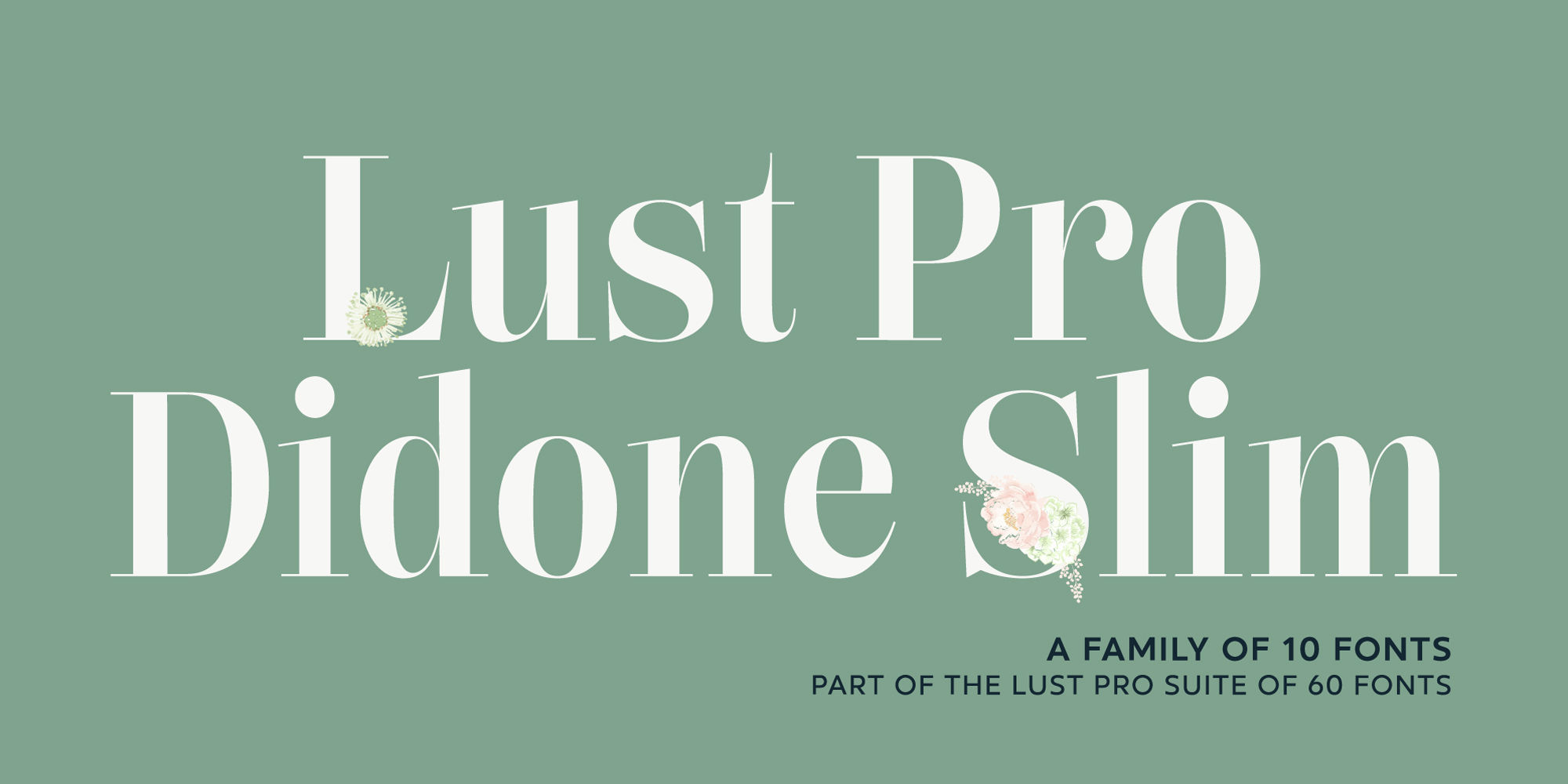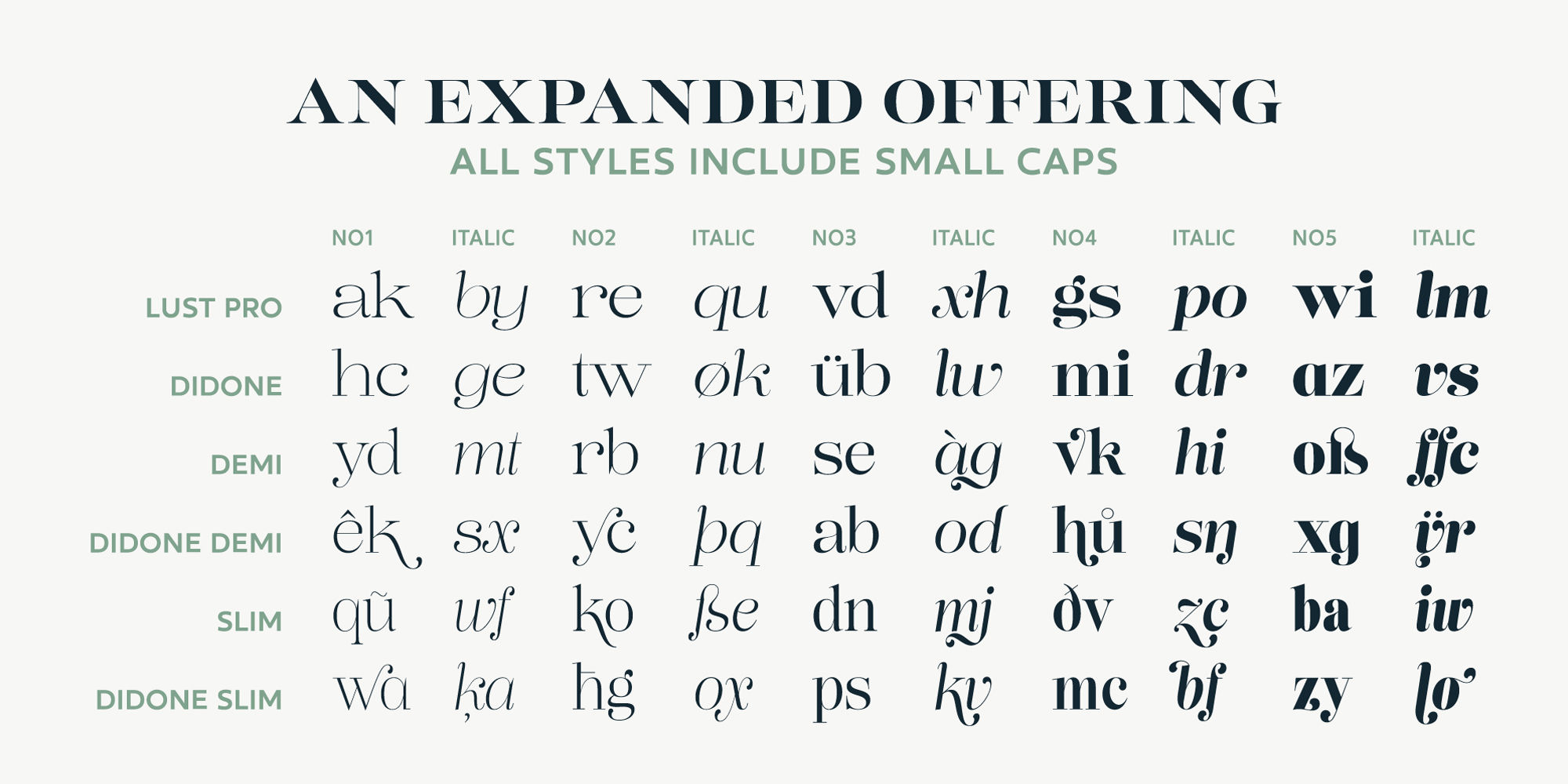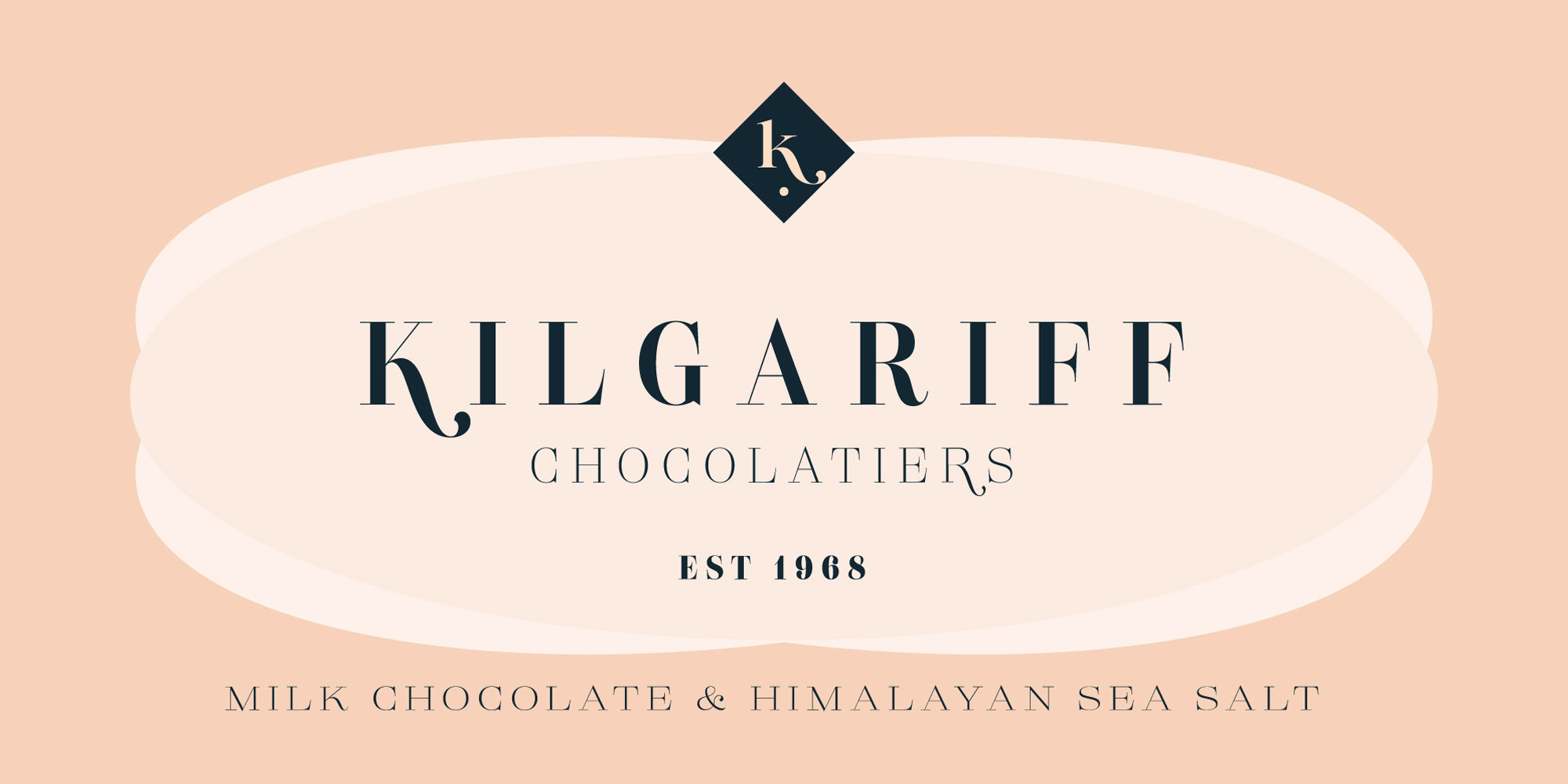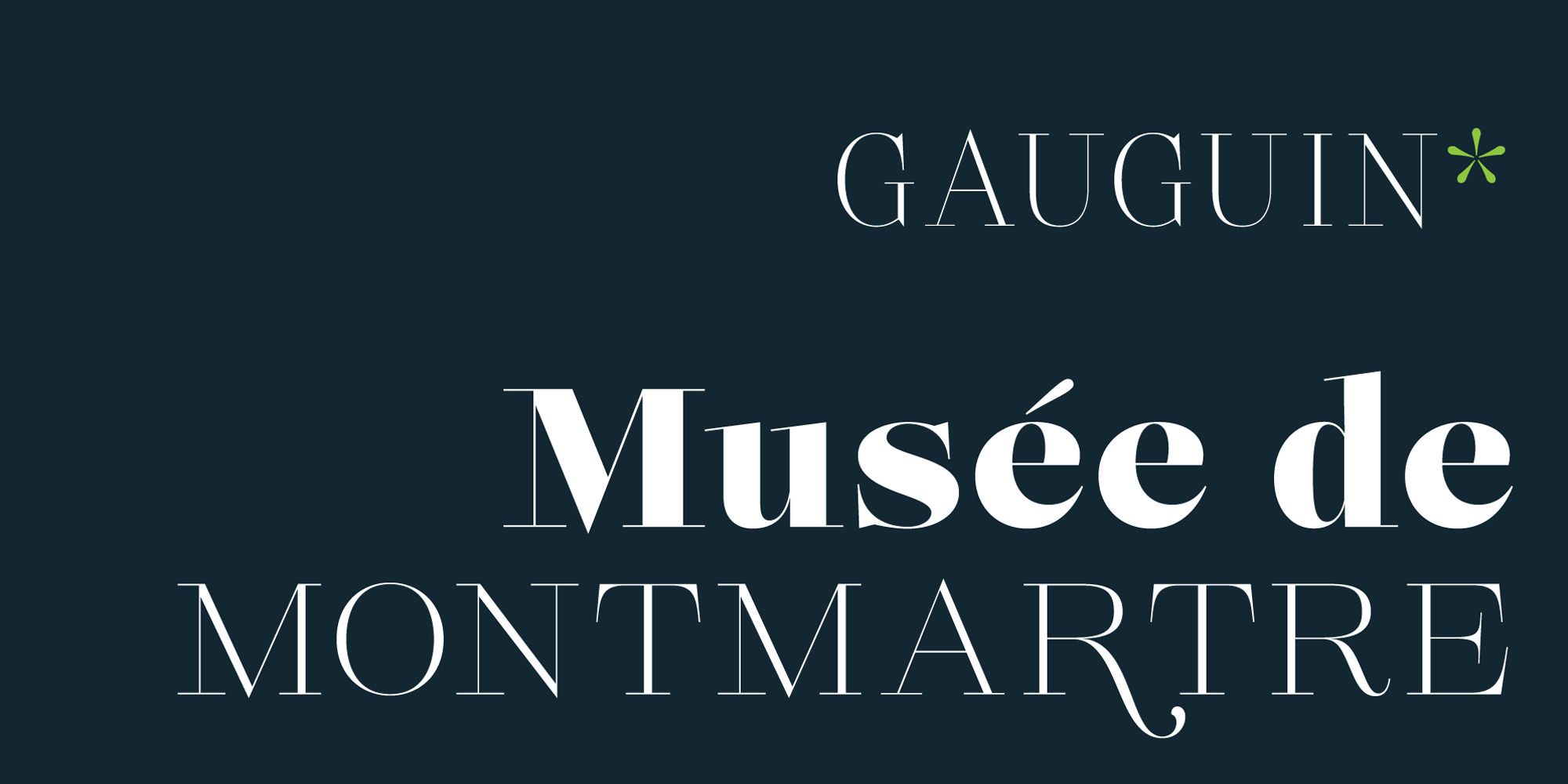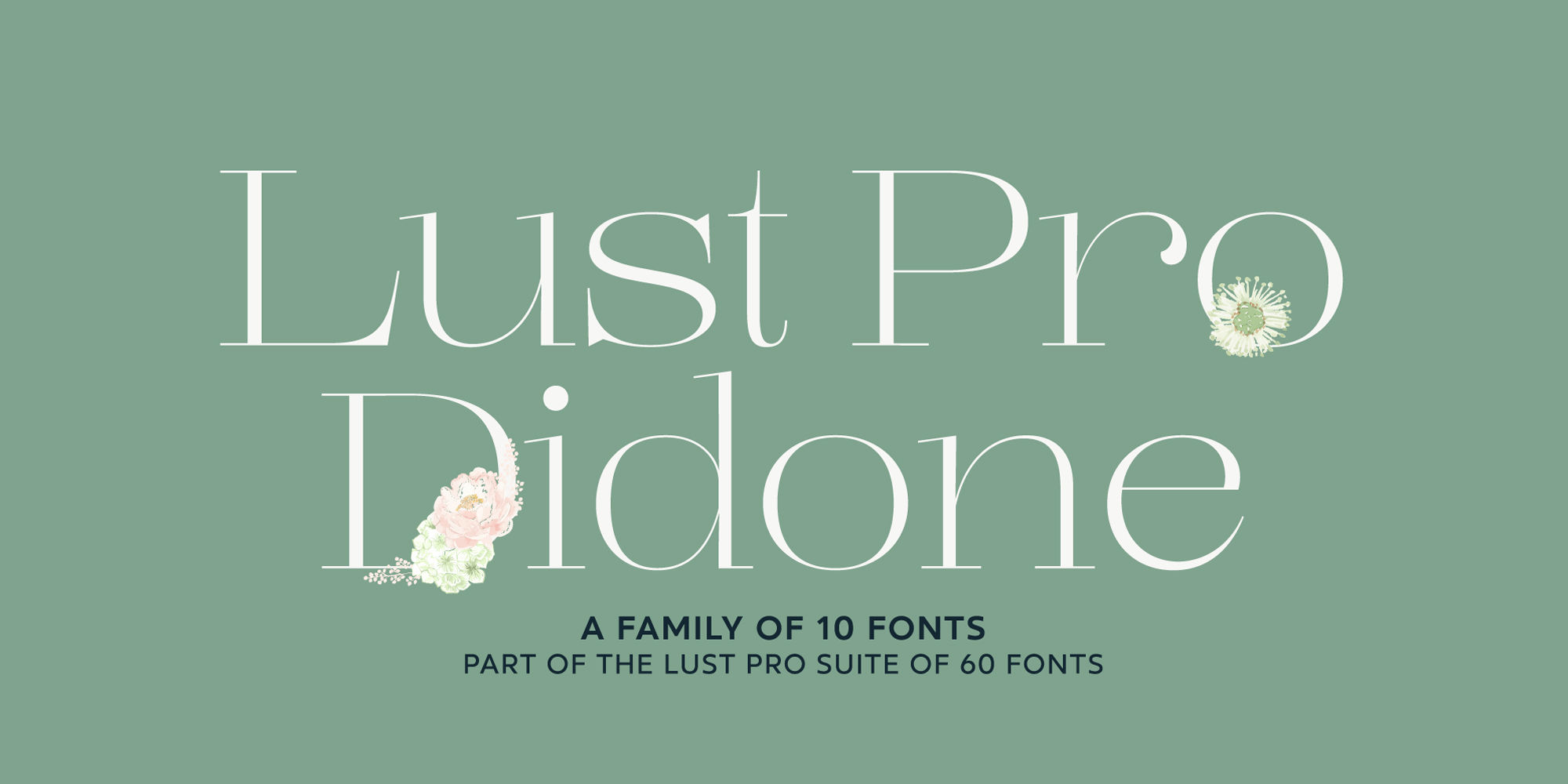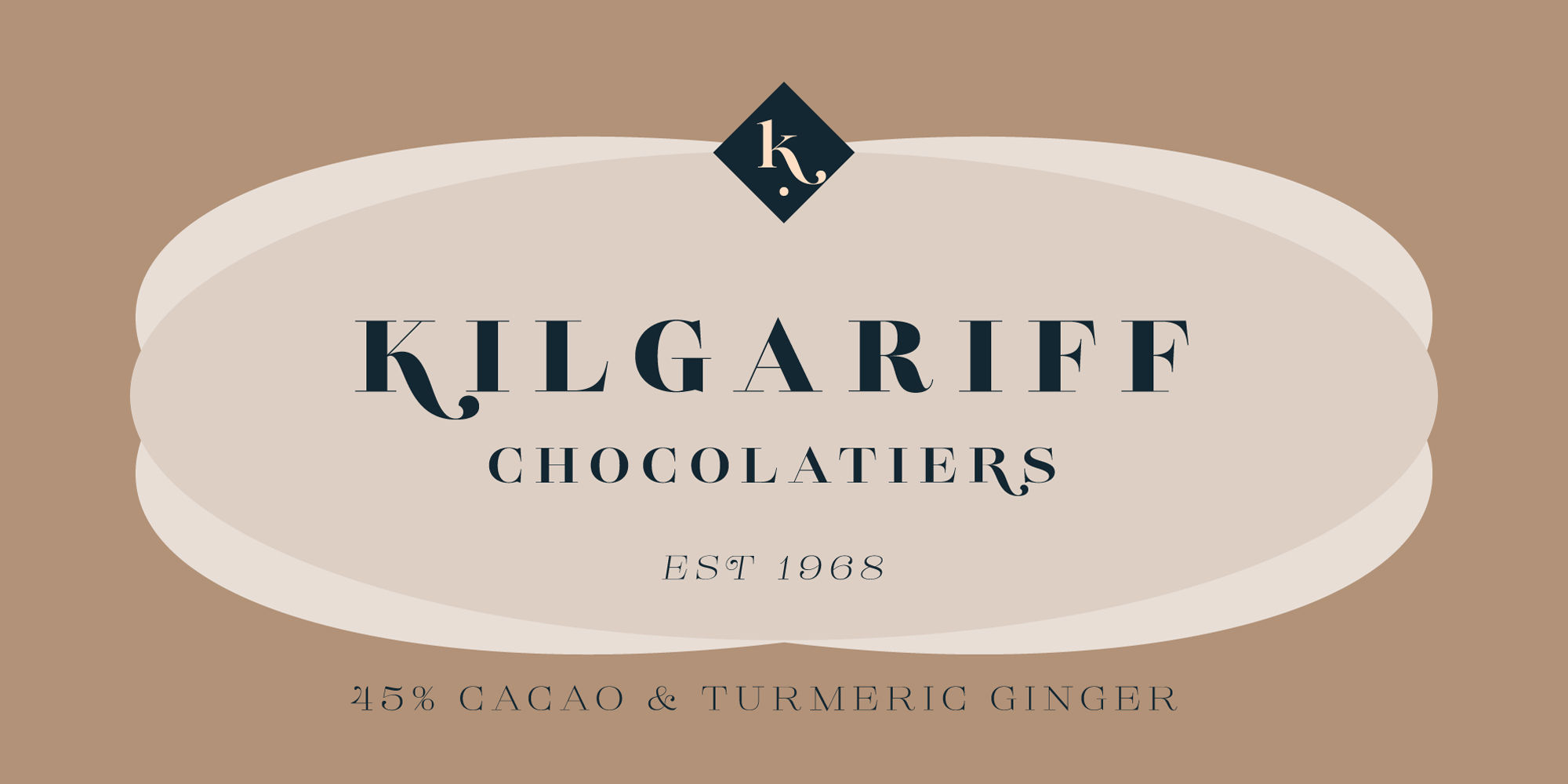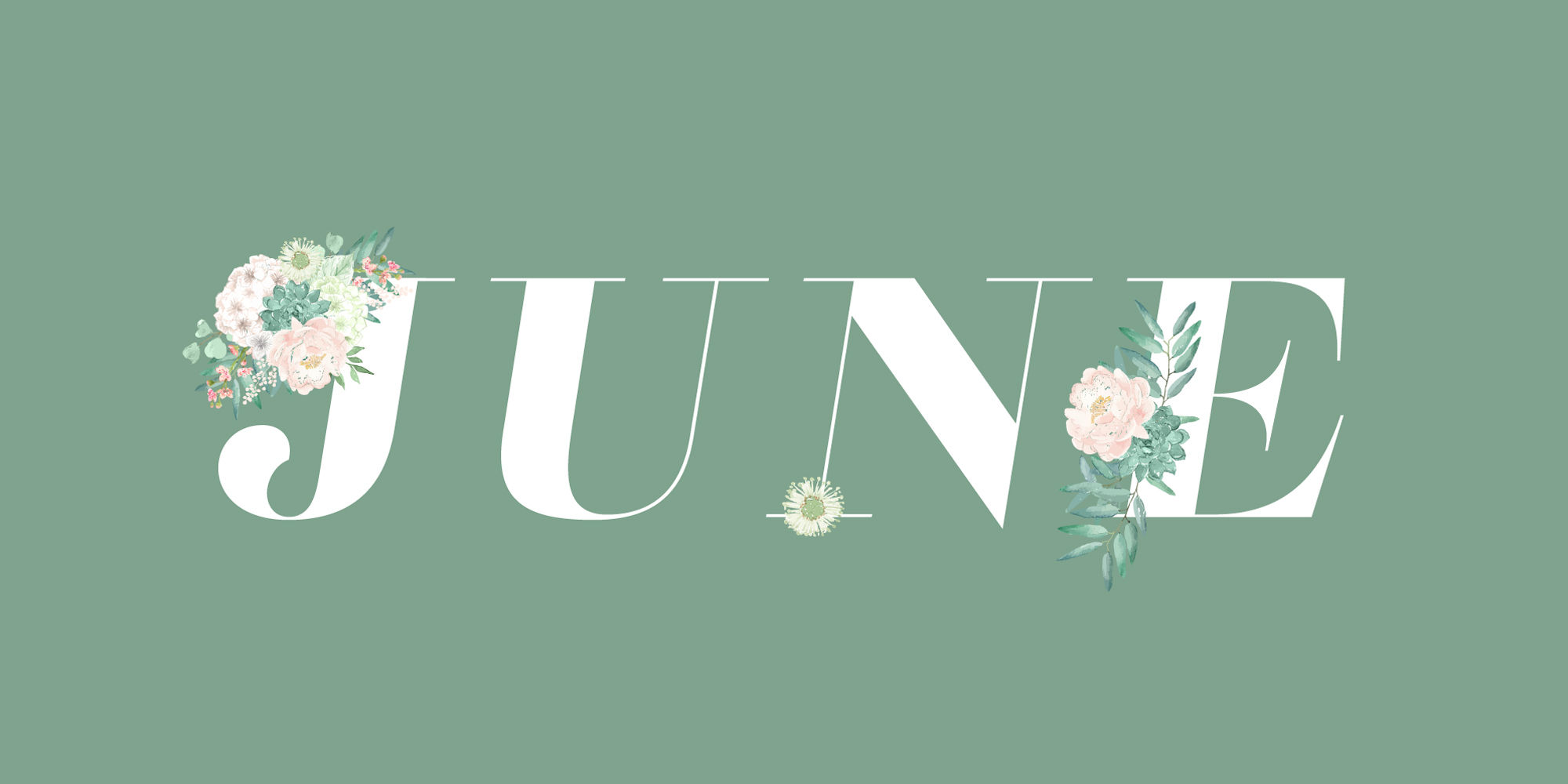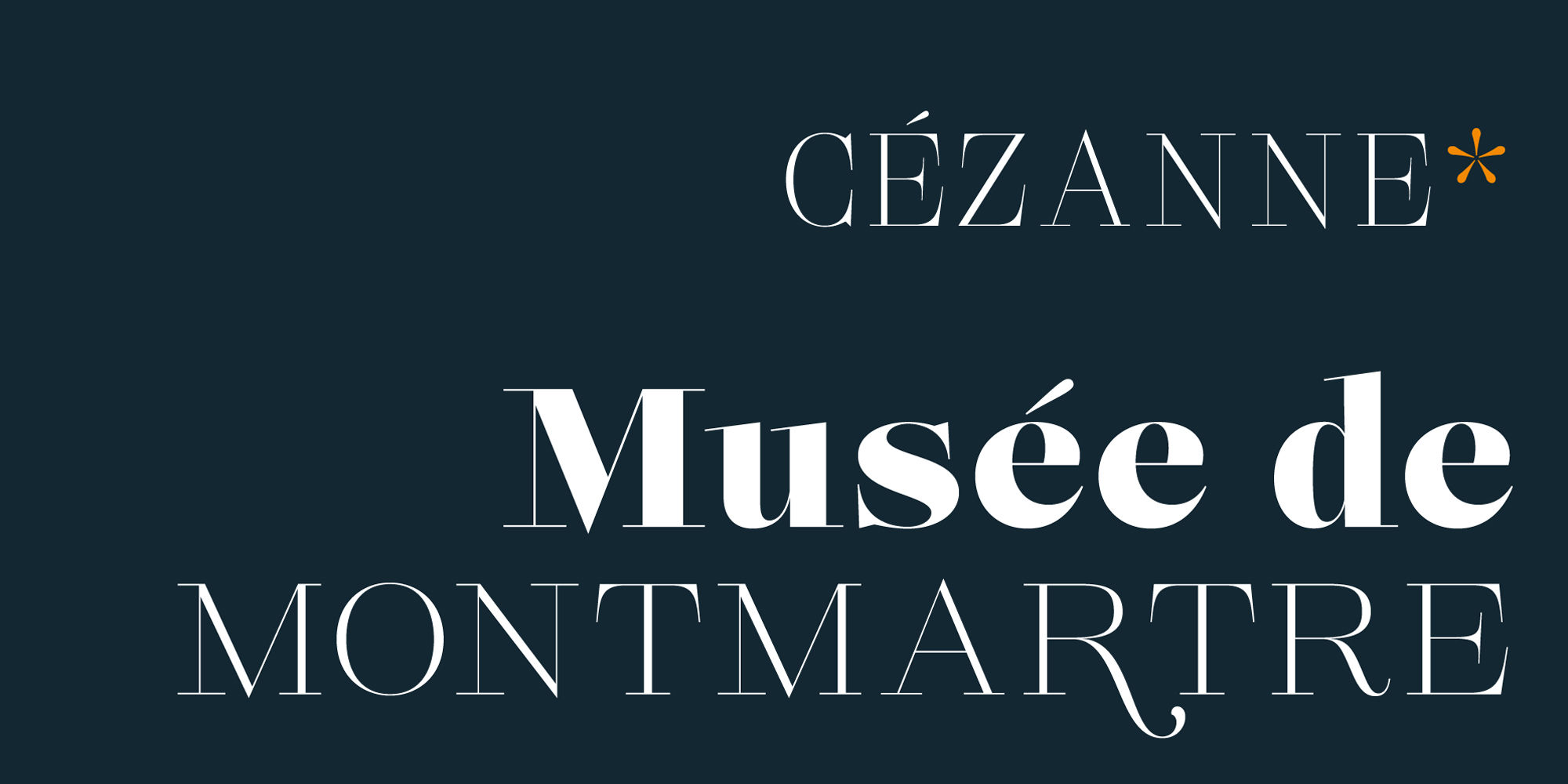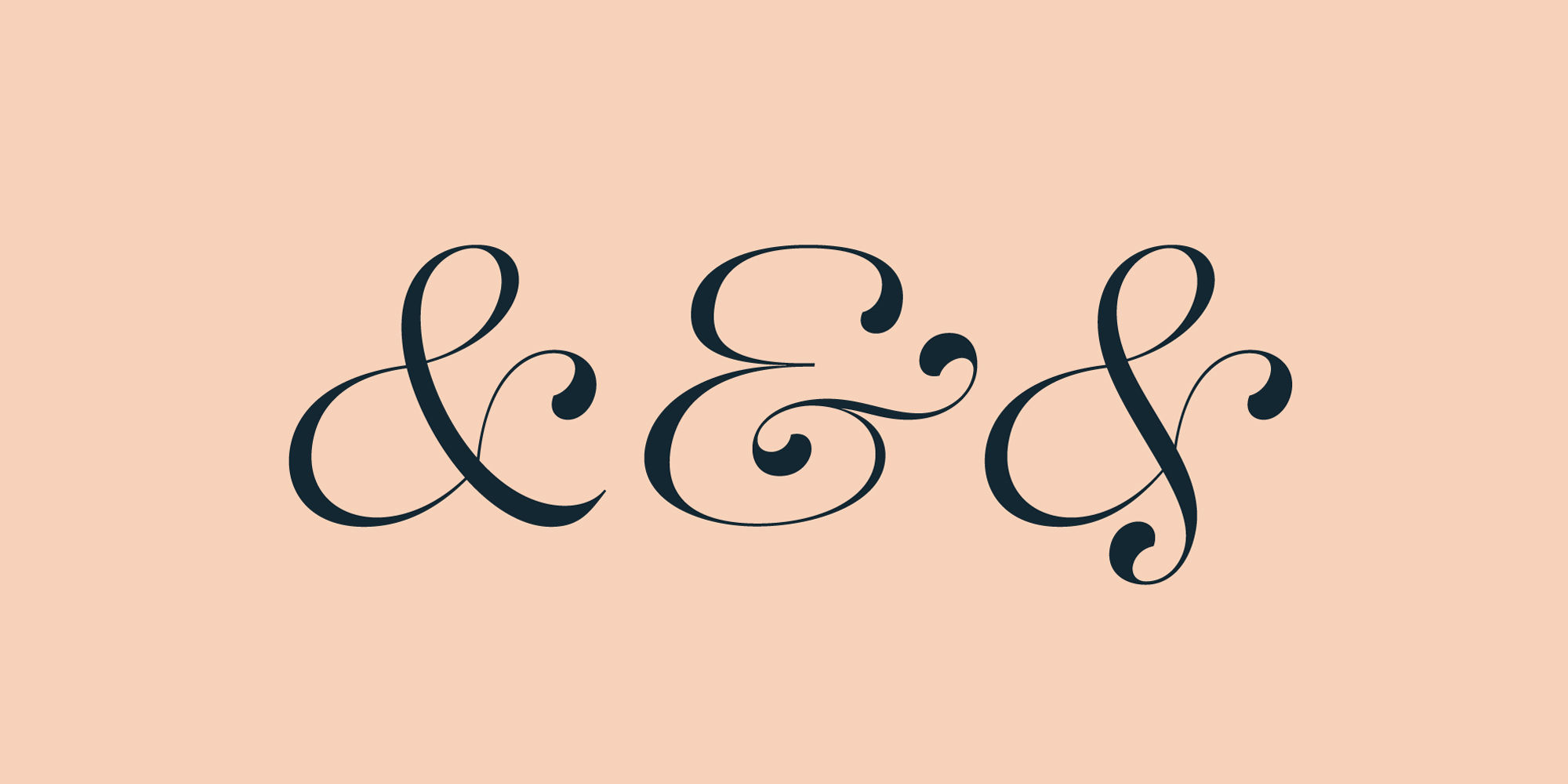
Lust Pro Didone
Th
Discretionary Ligaturesdlig
K R k y
Swashswsh
K R h k y
Titling Alternatestitl
Small Caps
Small Capssmcp
A N R S
Stylistic Alternatessalt
12345/67890
Fractionsfrac
x6 y8
Superscriptsups
H2O34
Scientific Inferiorssinf
Confident and versatile, Lust Pro™ is an exercise in indulgence—an attempt to create something over the top and vastly useful.
If Lust Pro seems both new and familiar, that’s because it is. The series unapologetically channels Herb Lubalin, but produced with a deliberate, contemporary twist. There is an intentional slyness infused in the letterforms—the extreme thick and thin lines flow effortlessly without becoming gratuitous. It’s always just enough, not too much. What makes the type series so appealing? The curves. When asked to describe the letterforms, most people unwittingly allude to the human form, using adjectives usually reserved for describing physical traits… creating all-too-familiar comparisons. Summerour has grown to accept this as unavoidable and reasonable given his acknowledgement of its influences and has provided nuances within the letterforms to accentuate that.
Intended to be set large, the typeface boasts 3 widths and 5 weights and matching italics for both the Regular and Didone variants (that’s 60 fonts in total), making it perfect for editorial use and a highly flexible solution for any display need.